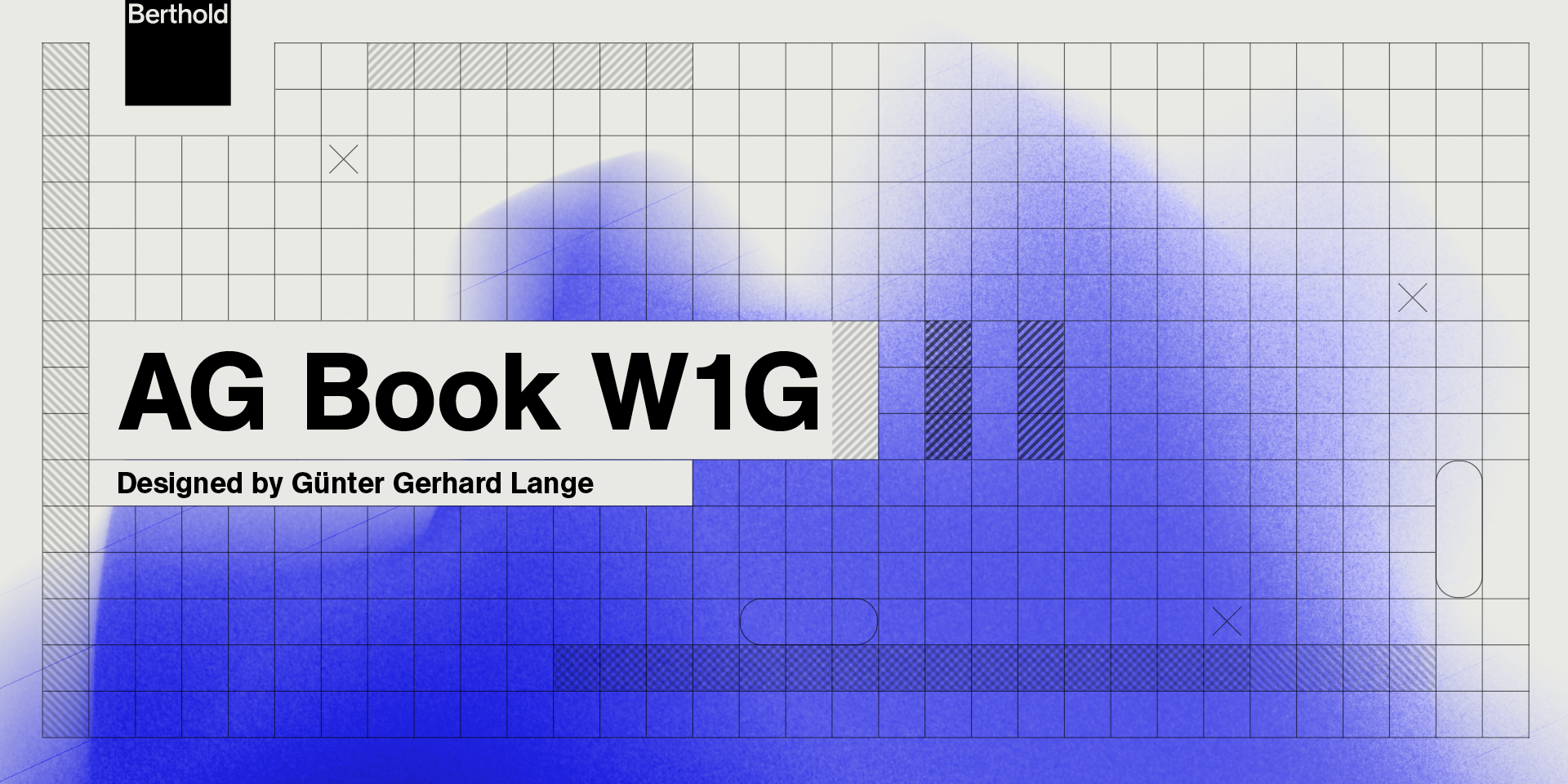
AG Book W1G Font is perfect for book publishing, academic textbooks, literary magazines, professional journals, scholarly publications, extended reading materials, educational content, corporate documentation, research papers, and any projects that prioritize exceptional readability and comfortable long-form reading experience with classic book typography.
What makes AG Book W1G Font exciting is its masterful optimization for extended reading with carefully balanced proportions and refined letterforms that reduce eye strain while maintaining exceptional clarity throughout long passages of text. This thoughtfully designed typeface features subtle humanist characteristics with excellent x-height and spacing that create smooth reading flow, making it ideal for books, journals, and educational materials where reader comfort is paramount. The font's scholarly character makes it perfect for publishers and educational institutions seeking to enhance comprehension and reading pleasure.
AG Book W1G Font family includes comprehensive book-grade weights featuring light, regular, medium, and bold options. The font family also offers true italic versions specifically designed for emphasis and citation, along with small caps and old style figures that enhance typographic sophistication. Special features include extensive language support, optimized spacing for different text sizes, and carefully crafted character relationships that ensure superior reading performance.